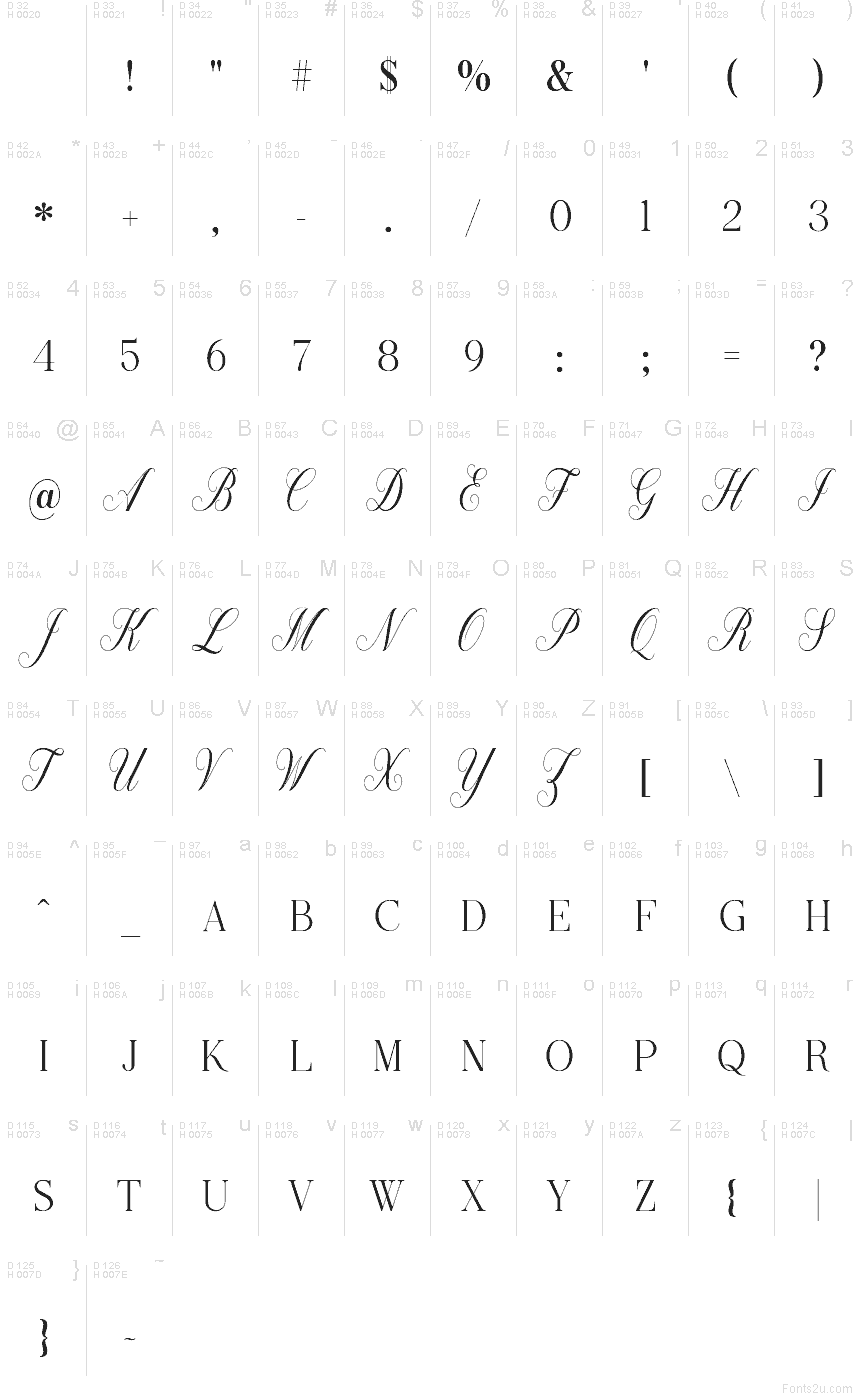
Every Time
Every Time font by Graphicxell is a free decorative serif typeface with the poise of hand-penned calligraphy. Tall, slender letterforms are finished with sweeping curls and airy loops that feel like ink drawn with a fine nib. The contrast between its delicate strokes and confident verticals gives headlines a romantic, slightly dramatic presence without feeling stiff or old-fashioned.
Using Every Time in your work instantly adds a sense of celebration—think wedding invitations, save-the-dates, boutique logos, perfume or candle packaging, book covers, and upscale menu designs. This free font shines when set large, letting the flourished caps breathe and overlap a bit. For a balanced layout, pair Every Time with a clean geometric sans for small text to keep everything legible and modern.